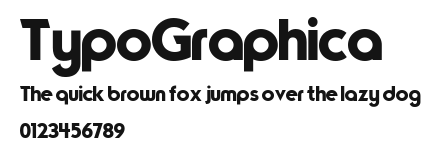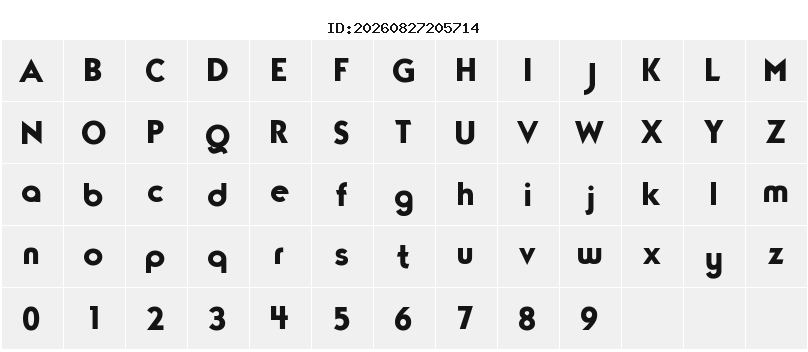
• Font Name: TypoGraphica
About TypoGraphica.otf
TypoGraphica.otf is a modern, elegant sans-serif font designed for ultimate readability and visual harmony. Perfect for branding, headlines, web design, and print materials.